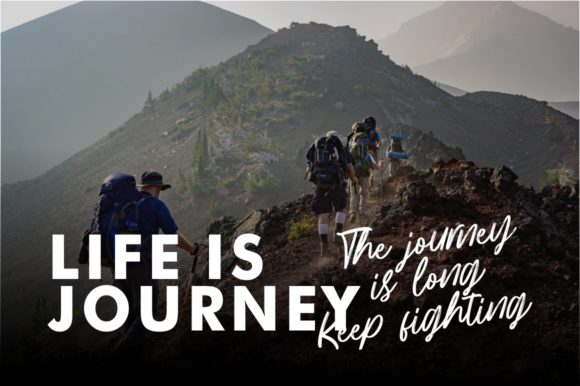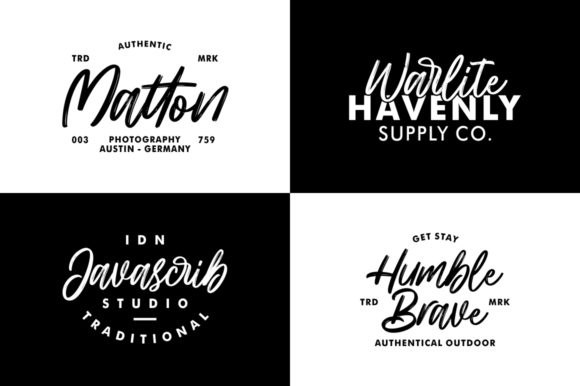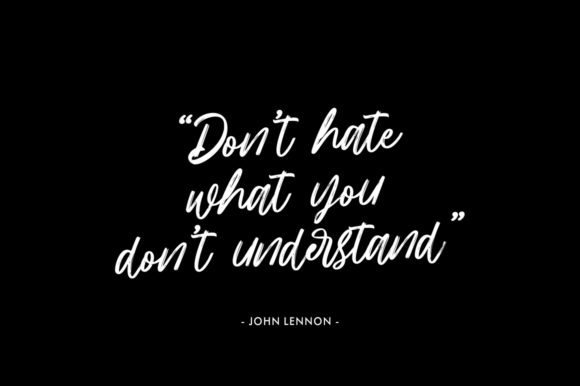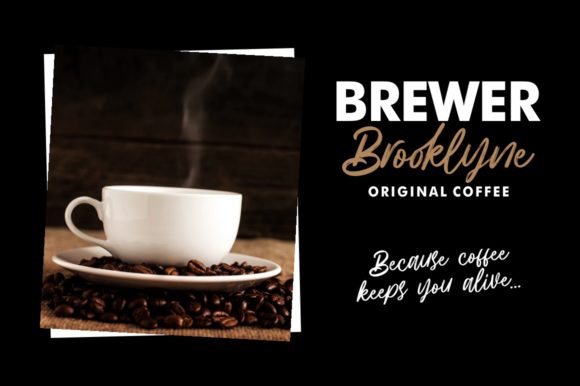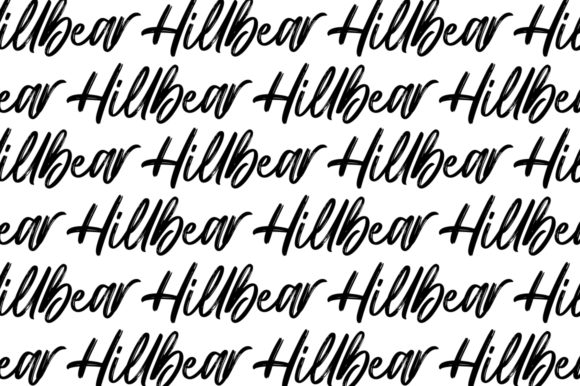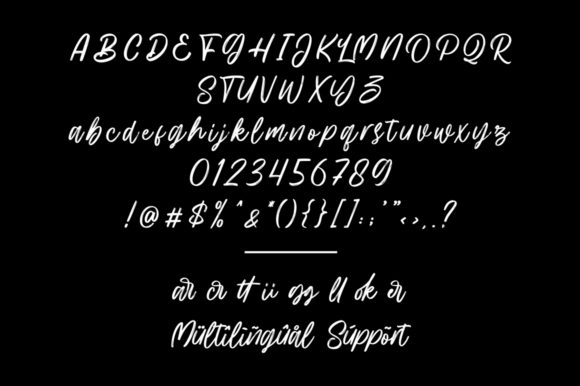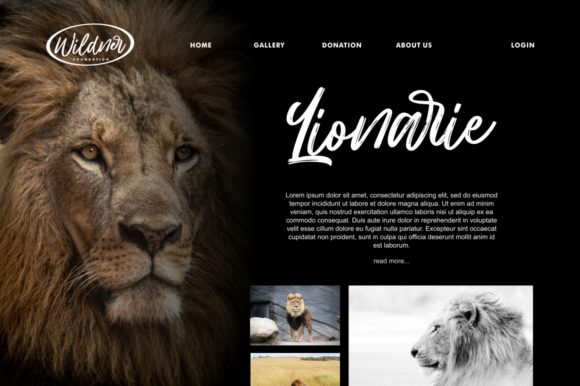
HomeScript FontsHillbear Font Script Fonts Hillbear Font FacebookXPinterestWhatsApp Hillbear Font Poster 2 Hillbear Font Poster 3 Hillbear Font Poster 4 Hillbear Font Poster 5 Hillbear Font Poster 6 Hillbear Font Poster 7 Hillbear Font Poster 8 About Hillbear Font Hillbear is an incredibly charming script font that will turn any design project into a true piece of art. DOWNLOAD ON CREATIVE FABRICAThis font is sold and delivered by Creative Fabrica. Font Canyon may earn a commission if you buy through this link. People also explored Melodious Script Font Marcella Font Ukrainian Histori Font Love Kimie Font Happy New Year Font Gainsbury Halfway There Font Monumental Font Bookstory Font 307 0 TagsHillbear Font Previous articleNellyana Script FontNext articleValeri Font LEAVE A REPLY Cancel reply Comment: Please enter your comment! Name:* Please enter your name here Email:* You have entered an incorrect email address! Please enter your email address here Website: Save my name, email, and website in this browser for the next time I comment. Personal Use Free Styledeep Personal Use Free Read more about this font Santhony Personal Use Free Read more about this font Tanpax Personal Use Free Read more about this font Stereofidelic Personal Use Free Read more about this font BLOG Where to Buy American Fonts Online in 2024 Where to Buy American Fonts Online: The Ultimate Guide for 2024 Looking for the perfect American font to elevate your design projects? You're in the... How to Install and Use Fonts on Windows, macOS, and Web Projects The 10 Best Handwriting Fonts to Add Personality to Your Designs Using Fonts in Digital Marketing: Tips to Strengthen Your Brand Identity